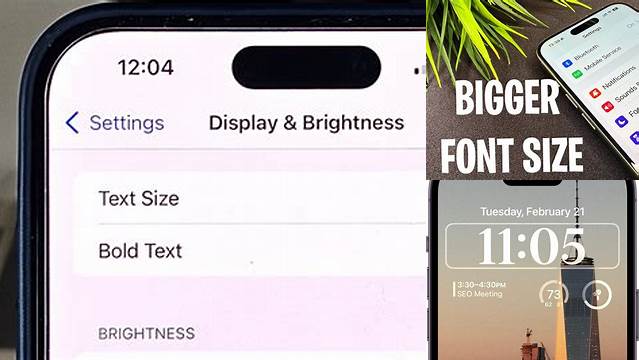
IPhone 15 Font Guide: Best Styles & Customization
Hey guys! Ready to jazz up your iPhone 15? One of the coolest ways to do that is by playing around with the fonts. Changing your font can completely change the vibe of your phone, making it feel fresh and totally you. This guide is all about the best fonts for iPhone 15, how to customize them, and everything you need to know to make your phone look awesome. Let's dive in and explore the world of iPhone 15 fonts! We'll cover everything from system fonts to cool options you can download, ensuring your iPhone 15 stands out from the crowd.
1. Exploring the Default iPhone 15 Font Options
Alright, so first things first: what fonts come pre-loaded on your shiny new iPhone 15? Apple usually keeps things sleek and simple, so you'll find a few go-to options right out of the box. The main system font is called San Francisco. It's designed by Apple and is super readable, which is key for everyday use. You'll see it everywhere, from your home screen to your emails. San Francisco is a workhorse – it’s clean, modern, and optimized for the Retina display of your iPhone 15, making sure everything looks crisp and clear. Beyond San Francisco, you might find a few variations like San Francisco Pro for more formal situations, and different weights like bold, light, and italic. These variations give you some flexibility to tweak the look of your text. For example, using a bold font can make headings pop, while a lighter font can create a more subtle feel. The default fonts are designed to be versatile and user-friendly, so you can't go wrong starting with these! They're also optimized for different screen sizes, which is important for readability on the iPhone 15's display. Make sure to take a look at the settings on your iPhone 15 to explore these options and see how they look on your phone. You can easily switch between the standard San Francisco and other weights to see what fits your style. It's all about finding what you like best!
2. How to Change Fonts on Your iPhone 15: A Step-by-Step Guide
Changing fonts on your iPhone 15 is pretty straightforward, and I’m here to guide you through it, step by step! First, let’s focus on the basic system settings where you can adjust text size and, to some extent, the display. You won't be able to install completely different fonts system-wide here, but these settings are still important for customizing your overall reading experience. Head over to the Settings app on your iPhone 15 (the one with the little gear icon). Tap on Display & Brightness, and then look for the Text Size option. This is where you can adjust the size of the text across your entire phone. Use the slider to make the text bigger or smaller, depending on what you prefer. You'll see a live preview of how the text changes as you adjust the slider. This is super helpful for finding the perfect size without having to go back and forth. Next, check out the Display Zoom setting. It's usually found on the same screen. This setting lets you choose between a standard view, which shows more content on the screen, and a zoomed view, which makes everything bigger. Choosing Zoomed can also affect how the font appears. This is great if you want the text to be easier on your eyes or if you have trouble reading small text. However, keep in mind that these settings adjust the size of the current fonts, not the fonts themselves. They mostly affect system fonts and apps that support dynamic text size. To change the font itself, you’ll need to explore third-party apps or other settings, which we'll get to next. It is crucial to understand that these options modify how the default fonts appear, but they don't change the fonts. You're adjusting the size and zoom, not the font.
3. Utilizing Third-Party Apps for Font Customization
Alright, let’s get into the fun stuff: using third-party apps to install and use new fonts on your iPhone 15! Unfortunately, Apple doesn’t allow you to change fonts system-wide, so you can't just swap out San Francisco for something else across your entire phone. But, here's the good news: many apps let you use custom fonts within their interfaces. This means you can have different fonts in your notes, documents, or social media posts, which is super cool! One of the best apps for font customization is iFont. This app allows you to install custom fonts and use them in apps that support font selection. Download iFont from the App Store, and follow the instructions to install the fonts you want. You will likely need to install a profile in your iPhone settings. After installing the fonts, you can usually find them in the font selection menu of apps that support custom fonts. For example, apps like Pages, Keynote, or apps that let you write notes or create designs will give you a font menu where you can select your newly installed fonts. Another great option is Fontcase. It is similar to iFont, providing a wide selection of fonts you can add. With Fontcase, you can browse, download, and manage fonts. Also, you can use the fonts directly in apps that support font selection. Remember, the fonts you install will be specific to the apps that support them, not system-wide. This means the new fonts will appear in certain apps, not necessarily in the Settings app or on your home screen. While it's not a total overhaul of your phone's font, it still gives you loads of options to personalize your experience. You'll be able to choose from a massive library of styles, from elegant serifs to bold, modern sans-serifs. Experiment with different fonts to see which ones match your personality and the style of the content you’re creating. Explore different apps to find the best combination for your specific needs! Don't forget to check the app descriptions for compatibility details before you install anything.
4. Downloading and Installing Fonts on Your iPhone 15 with iFont
5. Best Free Fonts for Your iPhone 15: Top Picks
Okay, let's talk about some of the best free fonts you can snag for your iPhone 15. There are tons of awesome free options out there, so you can give your phone a fresh look without spending a dime! When choosing free fonts, it's important to consider readability, especially on a small screen. You want a font that's easy on the eyes and doesn't strain your vision. Some of the best free fonts include Roboto, a versatile sans-serif font designed by Google, known for its clarity and modern look. Then we have Open Sans, another popular choice, also a sans-serif, that is known for its friendliness and legibility. It is great for everyday reading! You might also like Lato, a slightly more rounded sans-serif that is stylish and readable. For a more classic feel, you could try Montserrat, a geometric sans-serif that is great for headlines and body text. When you download these fonts using iFont or another font management app, you can preview them before installing. This lets you make sure you like the style and how it looks on your screen. After installation, you can start using these fonts in apps that support custom fonts. You can use them in Pages, Keynote, or other apps where you create documents, take notes, or design anything! Be sure to explore the different fonts and find the ones that best match your personal style and the specific apps you’re using. Don't be afraid to experiment with different styles and weights to see what works best. With all these free fonts, there's no limit to how creative you can get with your iPhone 15’s look! Make sure you can read them well, it's important to create awesome and readable content!
6. Cool and Unique Fonts to Make Your iPhone 15 Stand Out
Ready to make your iPhone 15 really stand out? Let’s explore some cool and unique fonts that can give your phone that special touch! When you're looking for unique fonts, think beyond the usual suspects. The goal is to find fonts that reflect your personality and make your phone feel distinctively yours. Consider handwritten fonts. They can add a personal and friendly vibe to your notes and documents. Fonts like Amatic SC or Dancing Script can make your iPhone feel more warm and inviting. If you want something with a futuristic or techy feel, explore monospace fonts! These fonts have letters with the same width, which gives them a clean, almost code-like appearance. Fonts such as Courier New or similar styles will give your phone a unique edge. For a more artistic look, check out fonts with a bit of flair, like serif fonts that have decorative elements or script fonts with flowing lines. Fonts like Great Vibes can add a touch of elegance. When choosing unique fonts, ensure they remain legible, especially if you are using them for body text. It's all about balancing creativity and readability. Play around with the font options and see what looks best on your iPhone 15 screen. Remember to check the font previews in iFont or other font management apps to get a feel for how they will appear. These unique fonts are a surefire way to make your iPhone 15 truly your own.
7. Font Styles and Weights: Understanding the Options on Your iPhone 15
Alright, let’s get into the details of font styles and weights! Understanding these options will help you create the perfect look for your iPhone 15. The font style and weight allow you to further personalize the text on your device. Font Styles include things like italic and bold. Italic fonts add a slant and are often used to emphasize text. Bold fonts make your text thicker, perfect for headlines or drawing attention. When you see a font, it usually comes in different weights, ranging from light to heavy. These weights determine how thick or thin the lines of the letters are. You might see options like light, regular, medium, bold, and black. The weight you choose affects how the text appears on the screen. Lighter weights are great for a sleek, modern look, while heavier weights are useful for making text stand out. Experiment with different weights to find what suits your taste and the content you are creating. Some apps also support other font features, such as underlining or strikethrough. You can use these to add even more emphasis to your text. This versatility lets you adjust not just the font itself, but also how it’s presented! This way, you can create an attractive and readable layout for your iPhone 15. Different fonts will come with varying style and weight options, so exploring these will greatly expand your options.
8. Best Fonts for Productivity Apps on Your iPhone 15
Let’s talk about fonts for productivity! Choosing the right fonts in your productivity apps can boost your efficiency and make your work on your iPhone 15 feel much better. Readability is key. You want a font that's easy to read for long stretches of time, so choose a font that doesn’t strain your eyes. Some good choices include fonts like Open Sans or Roboto, which are super readable in various sizes. Consider the app’s purpose. If you're taking notes, a clean, simple font like Lato or Helvetica might be best. If you're working on a presentation, a bolder font like Montserrat might work well for headings. Keep a balance between clarity and style! Too many fancy fonts can be distracting and make your notes harder to read. The goal is to make your notes clean, easy to scan, and quick to understand. Different weights and styles can help organize your text. Using bold or italic fonts to highlight important points makes your content clear. This can help you scan your notes more quickly. Make sure the font works well in both light and dark modes. Also, it's smart to consider whether the font works well with the app’s interface. Ensure the font integrates well with the other elements of the app. The most important thing is to test out a few fonts! See which ones make your iPhone 15's productivity apps feel the most efficient for you. Try different fonts in notes, writing documents, and other productivity apps! Find out what makes your work faster and easier.
9. Fonts for Social Media: Making Your iPhone 15 Posts Pop
Let’s level up your social media game with awesome fonts on your iPhone 15! Fonts play a HUGE role in making your posts stand out. Think about it: on social media, people scroll fast, so your font needs to grab their attention immediately. A good font choice can make your content more engaging, and make your posts more shareable. First, consider your brand and the message you are sending. For a fun, informal post, you might use a playful font like Comic Sans. For a professional image, you could go for a clean, modern font like Lato or Helvetica. When choosing a font for social media, make sure it's clear and easy to read, even at small sizes. Some social media apps have their own built-in font options, but you can also use third-party apps like Phonto to add more creative fonts. With Phonto, you can add text to photos with a huge selection of fonts. It lets you customize your social media posts with creative fonts. Experiment with different fonts, sizes, colors, and styles to see what works best for your content. Use bold fonts for headlines and captions, and smaller, easier-to-read fonts for the rest of your text. It is a great way to make your posts more visually appealing. Don't be afraid to try something different! Experiment with unusual combinations of fonts to make your posts stand out even more. The main idea is to find fonts that reflect your personality and make your posts catch the eye.
10. Accessibility Fonts: Choosing Fonts for Better Readability on Your iPhone 15
Making your iPhone 15 accessible to everyone is important. Choosing the right fonts is a great way to improve readability and make your device more user-friendly for all users. When choosing fonts for accessibility, readability should be your top priority. Fonts with clear letterforms and consistent spacing are easier to read for people with visual impairments. Sans-serif fonts are usually a great choice, as they tend to be clean and simple. Fonts like Open Sans, Roboto, and Helvetica are excellent options. These are optimized for clarity and easy reading. Consider the size and weight of the font. You want the text to be large enough to read comfortably without being too overwhelming. Bold fonts can sometimes make text more readable, especially for those with low vision. Use the settings to make text larger, such as the Display & Brightness settings to adjust text size. Adjust the Display Zoom settings to zoom in on the content if the text is too small. Remember, the goal is to make your iPhone 15 as accessible as possible. Selecting the right fonts and settings helps those with visual impairments read and understand the content on their devices. You can customize your iPhone 15's settings to improve readability for all users!
11. Best Fonts for Note-Taking Apps on Your iPhone 15
Want to level up your note-taking game on your iPhone 15? Using the right fonts in your note-taking apps can make all the difference. When it comes to note-taking, your font should be easy to read and help you organize your thoughts. Consider the specific app you're using. Many note-taking apps offer font options. For example, if you use Apple Notes, you can change fonts. You can also customize the text size and style to improve readability. Choose fonts that enhance readability. Sans-serif fonts such as Helvetica or Roboto are great choices. They're clean, simple, and easy to read, even in smaller sizes. For a more handwritten feel, consider a script font like Patrick Hand. But, be cautious about using script fonts, as they can be harder to read than sans-serif fonts. Use bold or italic fonts to highlight important points or create a clear structure. If you’re taking a lot of notes, make sure the font works well with the app's features. Your font should also work with any formatting options the app provides. Experiment with different fonts and styles to find the one that makes your note-taking feel most efficient and enjoyable.
12. Fonts for Designing on Your iPhone 15: Creative Options
Ready to get creative? If you're into design on your iPhone 15, the right fonts can significantly impact the overall look and feel of your projects. For design, font choice is critical. You can find a great number of apps on the App Store! These apps offer font options, so you can change the text in your designs. Consider the style of your design. For a clean, modern design, choose a sans-serif font like Lato or Helvetica. For a more creative project, experiment with fonts that have unique styles, such as script fonts or display fonts. Remember that your fonts should be suitable for the design's goals. Consider the colors and other design elements. Use bold or italic fonts to create emphasis and improve the layout. If you're designing for social media or other platforms, consider the font size and readability on different devices. Test the fonts to make sure they work in various contexts. Using these cool fonts can significantly enhance your designs.
13. System-Wide Font Tweaks: Limited Options for iPhone 15
While you can't completely overhaul the system-wide fonts on your iPhone 15, there are some tweaks you can make to customize the appearance of text across your device. Display & Brightness is key. You can adjust text size here. You can also turn on Bold Text to make all the text on your iPhone thicker. This is a great option if you have trouble reading the text. Then, you also have the option to use Zoom Display, which can increase the size of everything on your screen, including text. Font changes with Accessibility settings. If you use Accessibility features, you may be able to change the system font. By enabling these features, you can customize the appearance of text and enhance the readability of your iPhone 15. Experiment with different settings and find the ones that best fit your needs. While system-wide font changes are limited, these tweaks allow you to personalize your experience.
14. Font Pairing: Combining Fonts for a Balanced Look on Your iPhone 15
Want to make your iPhone 15 stand out? Let’s talk about font pairing! Choosing fonts that complement each other is an art, and mastering it can make your iPhone's interface and design look amazing. The first step is to understand the different font categories: serif, sans-serif, script, and display. Pairing fonts is all about balance. The goal is to create a harmonious look without overwhelming the eye. A classic approach is to pair a serif font with a sans-serif font. For instance, use a serif font for your headings and a sans-serif font for the body text. It creates a sense of formality and readability. Another option is to use a display font for headlines and a simple sans-serif font for the body text. This creates a modern, stylish vibe. It's all about playing with different styles and weights to create a visually appealing layout. Don't forget to test your pairs in different contexts, like in your notes or social media posts. Preview how the fonts will appear to ensure everything looks right.
15. Fonts for Headlines: Choosing the Right Style for Your iPhone 15
Let’s focus on headlines! Headlines are crucial for grabbing attention, and the right font can make all the difference on your iPhone 15. When picking fonts for headlines, consider the tone you want to set. Bold, modern fonts are often effective for modern headings. When designing for a social media or other platform, select a font that's easy to read at different sizes. Experiment with different styles. Make sure your headline complements the rest of your text. If you're using a simple sans-serif font for the body, consider a bolder, more decorative font for your headline. Try pairing fonts. Use a headline font and a different font for the body text. You can use bold or italic fonts to create even more emphasis in your headlines. The key is to make your headlines clear and easy to read. Your headlines should be easy to read on your screen. Select your fonts carefully to get a great look on your iPhone 15.
16. Fonts for Body Text: Ensuring Readability on Your iPhone 15
Alright, let’s dive into choosing fonts for body text on your iPhone 15. Body text is the main content, so readability is absolutely key! You want a font that's easy on the eyes and makes it a joy to read. Sans-serif fonts like Helvetica, Roboto, and Open Sans are great choices for body text, as they're clean and simple. These are easy to read on small screens, even in long form. You need the text to be clear and readable for all your content. Font size and spacing are also important. Your text should be large enough to read easily without straining your eyes. Adjusting the line spacing can also improve readability. Stick to one or two fonts for your body text to maintain consistency. This makes your content look clean. Test out different fonts to see what works best for your content.
17. Font Management Apps: Organizing Your Fonts on Your iPhone 15
Let's get your fonts organized! Font management apps are essential for keeping track of all the fonts you download and install on your iPhone 15. These apps help you install, manage, and use fonts within apps that support custom fonts. One of the best font management apps is iFont. As we talked about, this app allows you to install fonts, manage font profiles, and preview fonts before installing. Another good one is Fontcase. Fontcase also lets you download and manage fonts, install font profiles, and use fonts within different apps. Create categories to organize your fonts. Create categories for your favorite, most-used fonts, and more. Also, keep track of where you downloaded each font. This is helpful if you need to reinstall the font later. When managing fonts, test each font to make sure it displays correctly in various apps. Check for any display issues or compatibility problems. Also, make sure you have permission to use the fonts. Make sure to always check the license agreements for any fonts you download.
18. Best Fonts for Emails on Your iPhone 15
Let's make your emails on your iPhone 15 look their best! The right font can significantly improve your email's appearance and readability. For email fonts, readability is crucial. You want a font that is easy to read on a screen, even if the screen is small. Sans-serif fonts are a safe bet. These are clean and clear. Consider your audience. For formal emails, you may want a classic font, like Helvetica or Arial. For more informal emails, you can use a modern font, like Open Sans or Roboto. Most email apps offer built-in fonts, but you can also use third-party apps to customize your fonts. When selecting fonts for emails, keep it simple. Don't use too many different fonts. If you use many fonts, your email can get cluttered and confusing. Also, test your emails on different devices to make sure they look good on all of them. Use a font that enhances readability and enhances the user experience.
19. Fonts for Calendars and Reminders on Your iPhone 15
Let's make your calendar and reminders on your iPhone 15 pop! Choosing the right fonts can make your scheduling tasks more manageable and visually appealing. In calendars and reminders, clarity is key. You need a font that's clear and easy to read at a glance. Use a sans-serif font, like Roboto or Helvetica, which are great choices. They are clean and simple, and easy to read. For a simple interface, a clean font is best. Make sure that all the information in your schedule is easily readable. Consider the colors and visual elements of your calendar and reminders. The colors and visual elements must complement the font you choose. If you're using a dark background, a light-colored font might be best. If the app allows, use different font styles and weights to highlight events or tasks. Use bold or italic fonts to emphasize important deadlines and reminders. The fonts you choose should create a consistent, user-friendly experience.
20. Fonts for Word Processing on Your iPhone 15
If you're writing on your iPhone 15, the right font can make the whole experience more enjoyable! Whether you're writing notes, working on documents, or just jotting down ideas, the perfect font is key. Readability should be your main goal. Choose fonts that are easy to read for long periods of time. Sans-serif fonts like Helvetica, Roboto, or Open Sans work great. They're easy on the eyes, and they won’t strain your vision. Consider the purpose of your writing. If you're writing a formal document, you might choose a classic font like Times New Roman. For a more casual writing, you can explore fonts like Lato or Montserrat. You may also want to consider the specific app you're using. Different word processing apps may support different fonts and customization options. It’s all about creating a seamless experience. The fonts should be easy to read and help organize your content. The fonts should enhance your workflow, so you can focus on writing!
21. Font Size and Readability: Optimizing Text on Your iPhone 15
Let's talk about font size and readability on your iPhone 15! Getting the font size right can significantly enhance your reading experience. Choosing the right font size is essential for making sure your text is easy to read, especially on a small screen. Find the perfect size. The font size should be large enough to read comfortably without straining your eyes. Make sure you can easily see the text! Use the settings in your iPhone 15 to change the text size. To access the settings, go to Settings, then Display & Brightness, and then Text Size. To further customize the text, you can also adjust the Display Zoom setting. The Display Zoom option allows you to choose between a standard view, which shows more content, and a zoomed view, which makes everything bigger. Check out the font weight and spacing. The weight of the font (like bold or light) and the spacing between lines and letters can affect readability. Test different settings to find what works best for you. Test the text. Be sure to check how text appears in different apps and contexts. Try out different sizes, weights, and spacing until you get the ideal look.
22. Fonts for Coding and Programming on Your iPhone 15
If you're coding or programming on your iPhone 15, you'll want a font that's designed for that specific task. Selecting the right font for coding on your iPhone 15 makes a big difference in your productivity. Monospace fonts are the standard for coding. Monospace fonts are designed so that each character takes up the same amount of horizontal space. Choose a font designed for coding, like Courier New or Roboto Mono. These fonts make it easier to distinguish between characters and identify errors. Consider the font weight and the contrast. Make sure the font is clear and easy to read. Use a coding-specific app. Many apps provide font options. Explore these options! You can customize the appearance and feel of the font to make sure it's the perfect look for you. Experiment with different options. Experiment and find the perfect font. This is the best way to improve your coding on your iPhone 15.
23. Best Fonts for eBooks and Reading Apps on Your iPhone 15
If you love reading on your iPhone 15, the right font can make your experience much more enjoyable! Choose a font that is easy to read, to maximize your reading experience. Readability is key for eBooks. The text should be clear and easy to read for long periods of time. Sans-serif fonts are ideal for eBooks. These are modern, clean, and easy on the eyes. Look for fonts with good spacing and kerning. Good spacing ensures that individual letters and words are clearly separated. Adjust the size of the font to ensure you can read it comfortably. Explore the settings in your favorite reading apps! Most apps allow you to change the font, size, and spacing. Experiment and discover which fonts work best for you.
24. Fonts for Websites: Displaying Text on Your iPhone 15 Browser
Let's talk about fonts for websites on your iPhone 15! Web fonts are essential for delivering a great reading experience on your device. When browsing websites on your iPhone 15, readability is critical. Choose fonts that are easy to read and won't strain your eyes. Websites use various fonts. Some websites use system fonts, while others use custom fonts. Consider the font size. Make sure the font size is appropriate for your screen. The best font is a readable one! Select the correct fonts to ensure a great reading experience!
25. Finding and Identifying Fonts: Tools and Techniques for iPhone 15
Ever seen a font you loved and wished you knew its name? Let's dive into the tools and techniques that can help you identify fonts on your iPhone 15. Use apps to identify fonts. Several apps can identify fonts. These apps use image recognition technology to analyze the text and identify the font. Try using the camera. You can take a photo of the text, and then the app will analyze it! Some apps can identify fonts from a live camera feed. Once you've identified the font, you can then use it on your iPhone 15!
26. Font Licenses and Legal Considerations for Your iPhone 15
Fonts have licenses, and knowing about them is key. Let's dive into font licenses and how they affect your iPhone 15. Before using any font, check the license. A font license is a legal document that gives you permission to use the font in certain ways. Free fonts typically come with a license that allows for personal use. Commercial fonts often require you to purchase a license. You may not have the right to use it commercially. Always make sure the font is compatible with your iPhone 15. When installing a font, always check the terms of use. When you download a font, the font file may come with additional instructions. Check your license to ensure the font is licensed for personal and commercial use.
27. Troubleshooting Font Issues on Your iPhone 15
If you run into font problems, don't worry! Here's a guide to troubleshooting font issues on your iPhone 15. If the font does not install correctly, then check the installation. If the font isn't showing up in apps, make sure the app supports custom fonts. You also want to check the font's compatibility. Make sure you’ve installed the font profile. If you're still having trouble, try to restart your iPhone. Restarting can sometimes solve these issues. These troubleshooting steps can help you solve common font problems.
28. Future of Fonts: Trends and Innovations for iPhone 15
What does the future of fonts hold for your iPhone 15? Let's explore the latest trends. The future of fonts involves a lot of exciting trends. The future may include more customized fonts. Expect to see more AI-powered design tools and more font customization. The advancements mean you'll have even more control. In the future, more apps will support custom fonts, giving you more control over your text.
29. Customizing Fonts Beyond the Basics: Advanced Tips for iPhone 15
Ready to take your font customization to the next level on your iPhone 15? Here are some advanced tips! Beyond the basics, consider how fonts interact with other design elements. Font styles should match the overall look. Experiment with color. You can use different colors and styles for your fonts! Use the settings on your iPhone 15. By adjusting settings and creating great designs, you can take your customization to the next level.
30. Your Ultimate iPhone 15 Font Checklist: Key Takeaways
Let's wrap things up with the ultimate iPhone 15 font checklist! This checklist gives you the key takeaways to make your iPhone 15 look and feel awesome. Choose fonts based on readability. The right font will make your iPhone 15 pop! Use iFont to install custom fonts. Use Fontcase to browse, download, and manage fonts. Ensure your chosen fonts work well with the apps you use most. Following this checklist ensures you'll choose the perfect fonts. Remember, it’s all about personal preference. Go out there and start customizing!